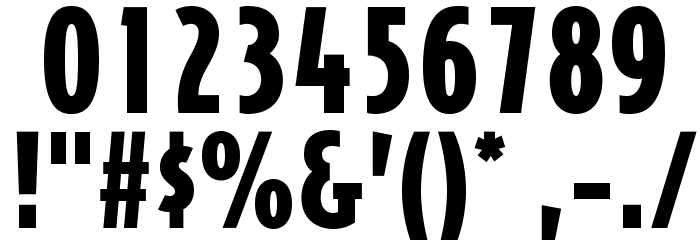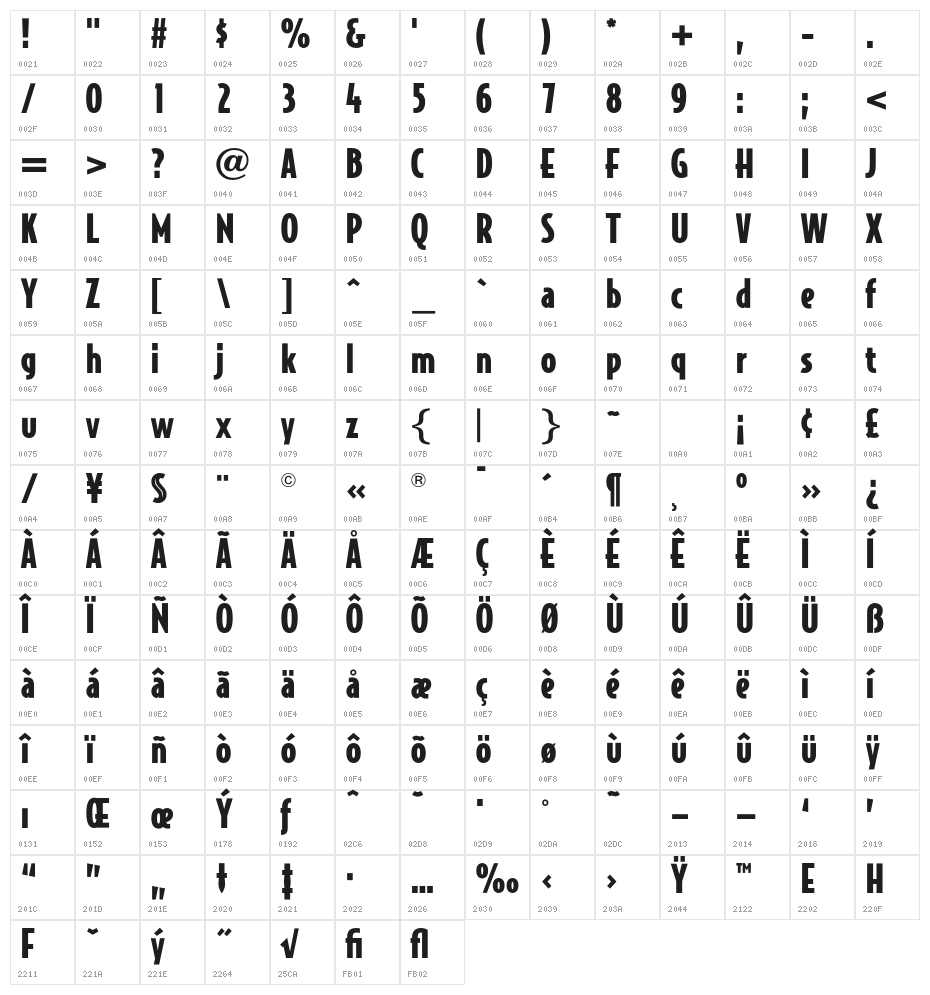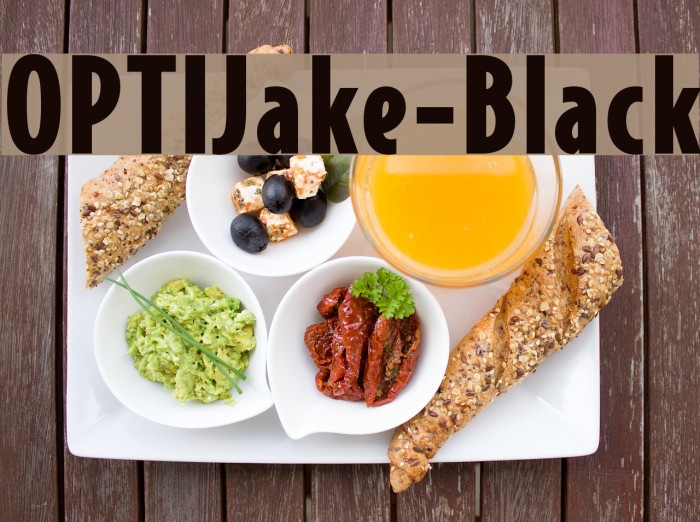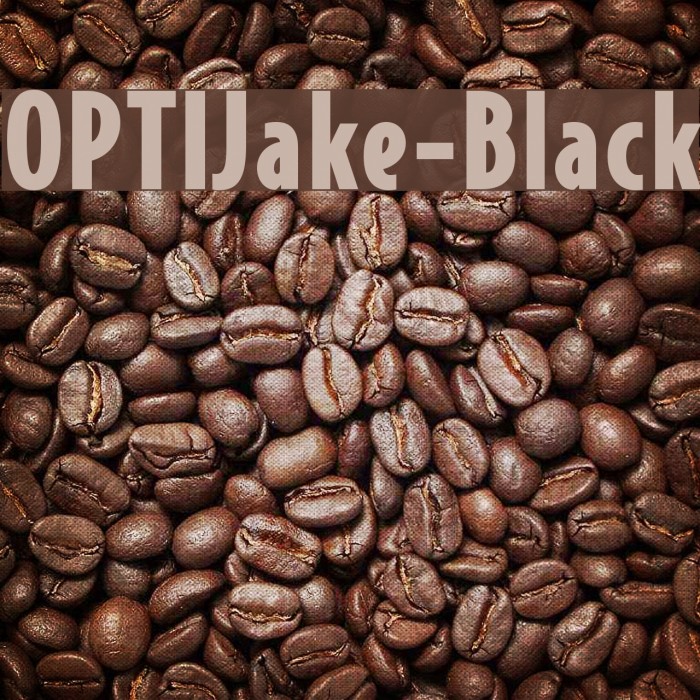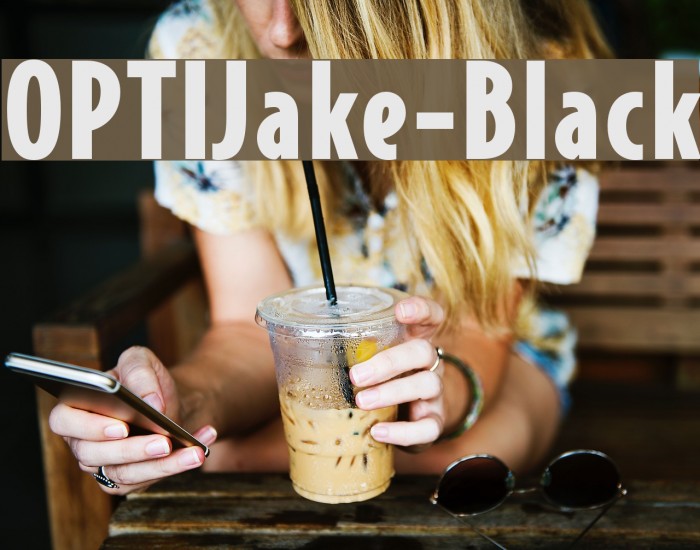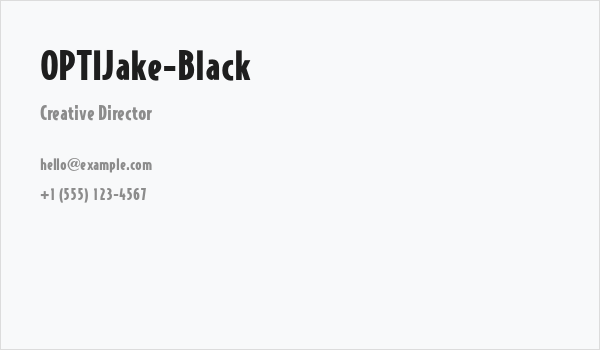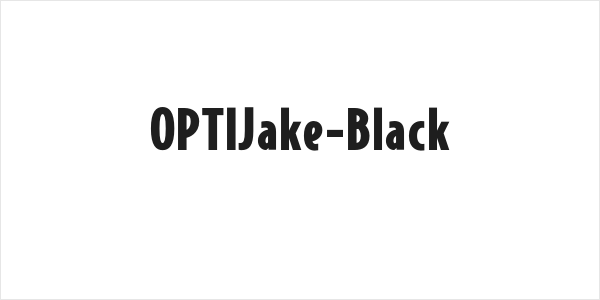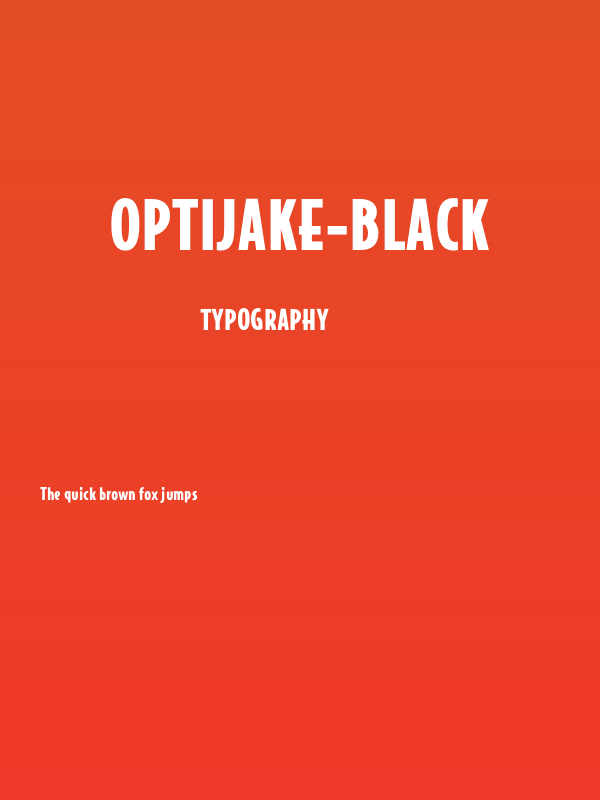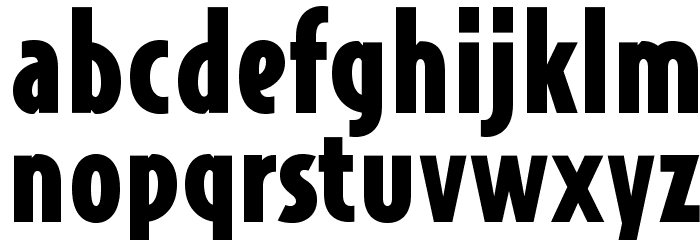
OPTIJake-Black Font
OPTIJake-Black Description
This font exhibits a bold and impactful design, characterized by thick, uniform strokes that convey strength and assertiveness. The letters are tightly spaced, enhancing its bold appearance. The uppercase and lowercase characters maintain a consistent style, with rounded edges that soften the overall look. The numerals are equally bold, ensuring visibility and readability. Special characters are designed with the same boldness, making them stand out. This font is ideal for projects that require a strong visual presence.
| Proposed Projects | Ideal for headlines, posters, branding materials, and any design requiring a strong, assertive typeface. |